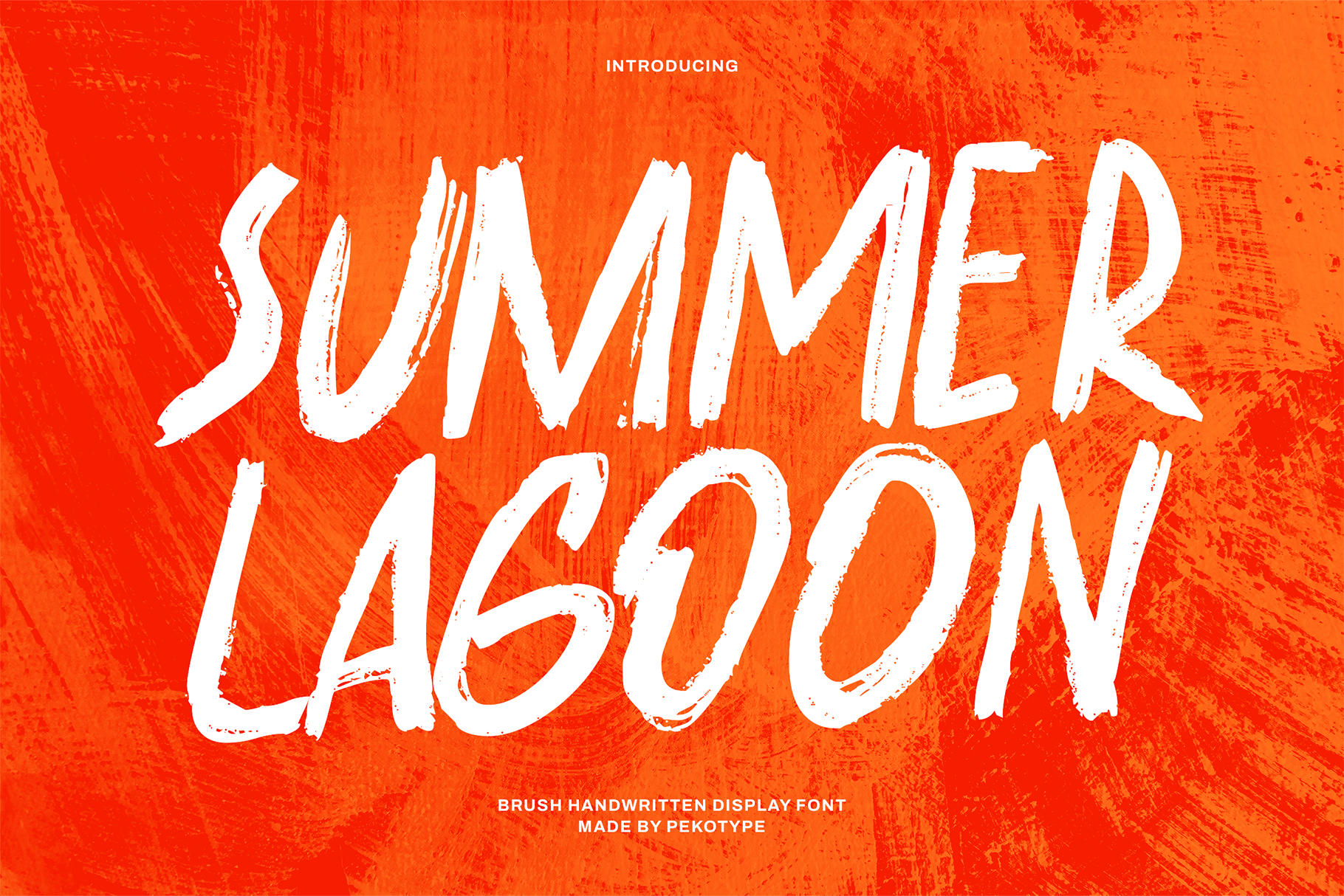
Summer Lagoon - Brush Display Font
Summer Lagoon is a bold brush font that brings a cool, authentic hand-painted feel to your designs. With its raw and energetic strokes, this font is all about capturing that fun summer vibe and street-style grit. It’s the perfect choice if you want your project to look personal, punchy, and full of life.
This font is super versatile and works great for almost anything—from surf-style logos and clothing brands to eye-catching social media posts and event posters. Whether you're designing a cool drink label or a bold YouTube thumbnail, Summer Lagoon gives you that professional, "hand-made" look in seconds. It also includes multilingual support to make sure your message reaches everyone!
- All Caps
- Number, Symbol, & Punctuation